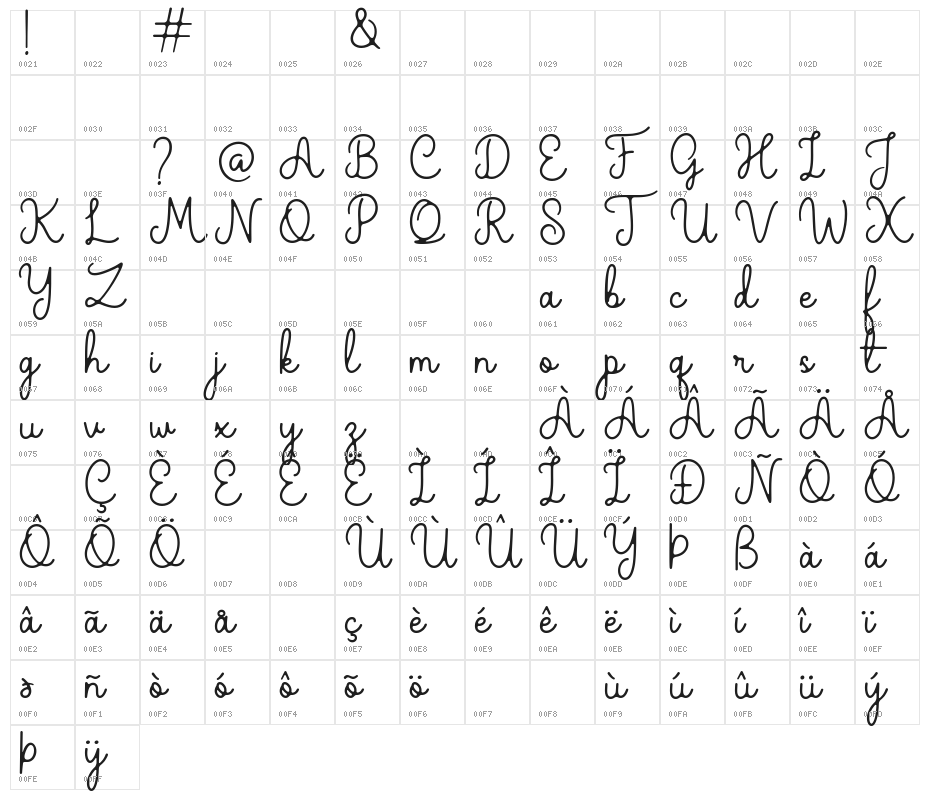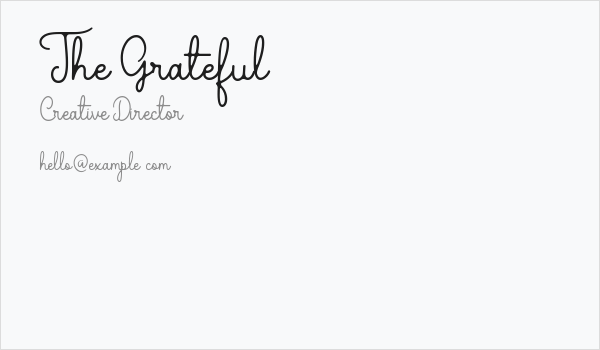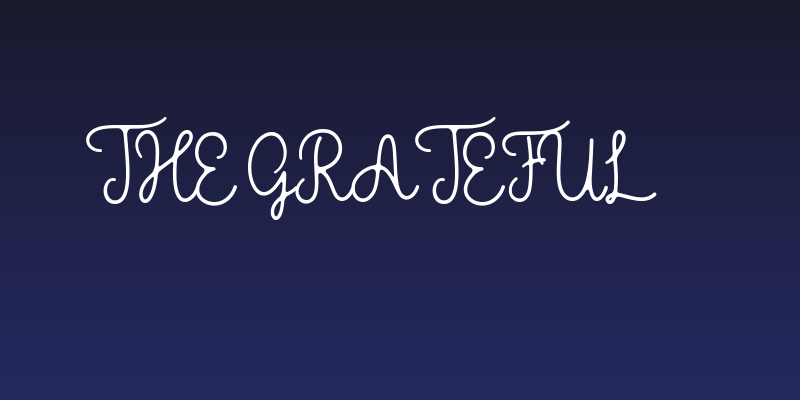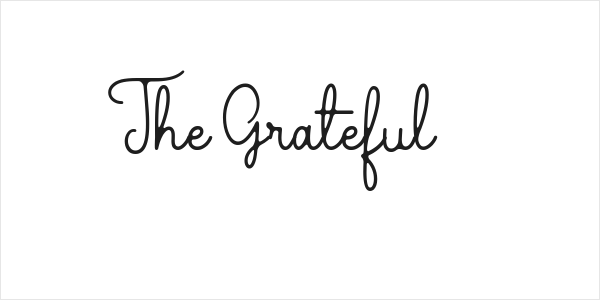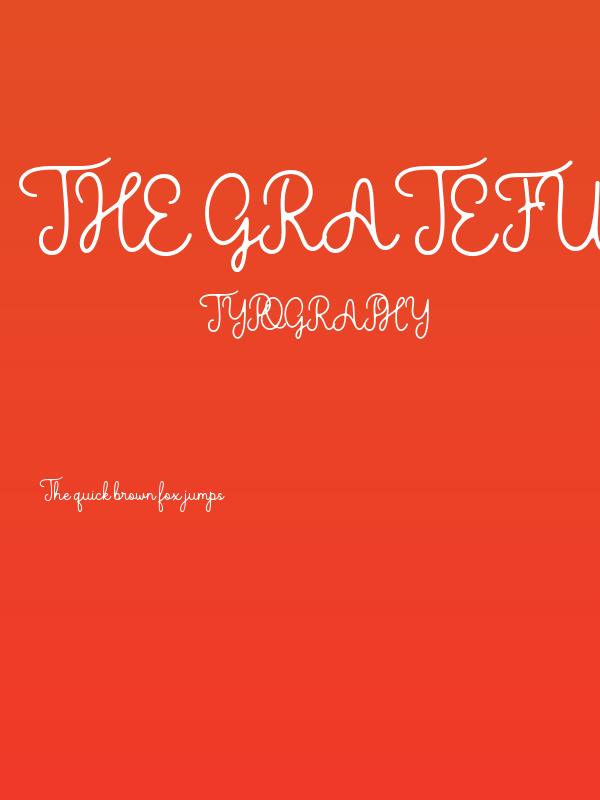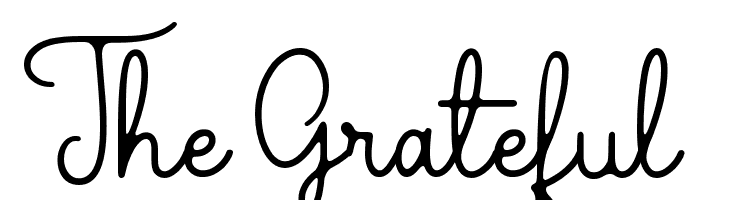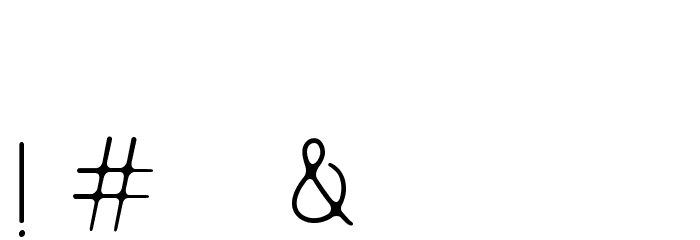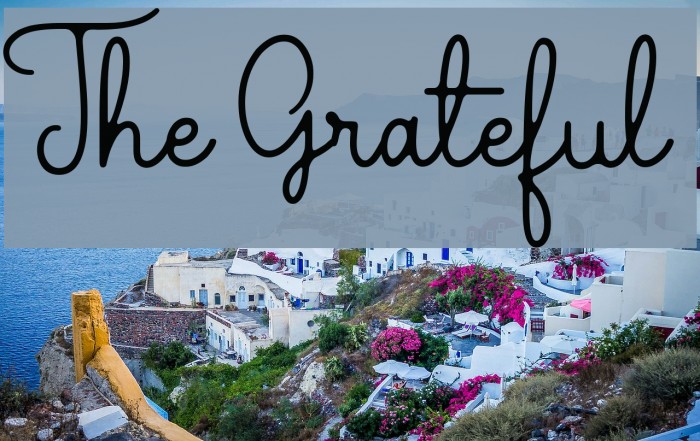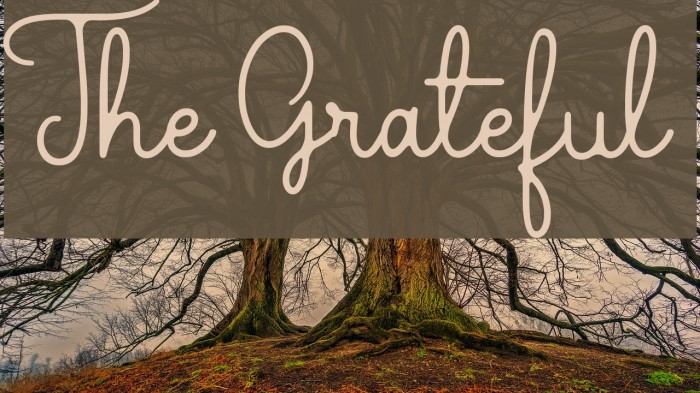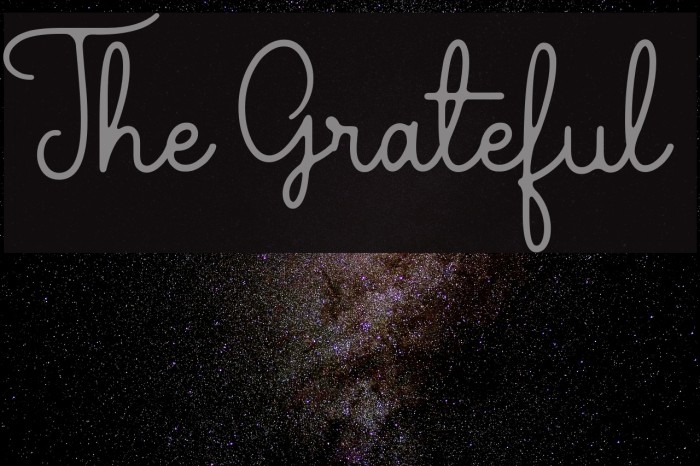
The Grateful 2 Font
The Grateful 2 Description
This font features a playful and elegant script style, characterized by its fluid and connected letterforms. The uppercase letters exhibit a graceful looped design, while the lowercase letters maintain a consistent flow, enhancing readability. The font's strokes are smooth and rounded, giving it a friendly and approachable appearance. It includes a full set of uppercase and lowercase letters, numerals, and a selection of special characters, making it versatile for various design needs. The overall aesthetic is both modern and whimsical, suitable for projects that require a touch of elegance and creativity.
| Use Case | Logos, Invitations, Decorative text |
| Proposed Projects | Ideal for wedding invitations, greeting cards, branding, and social media graphics. |